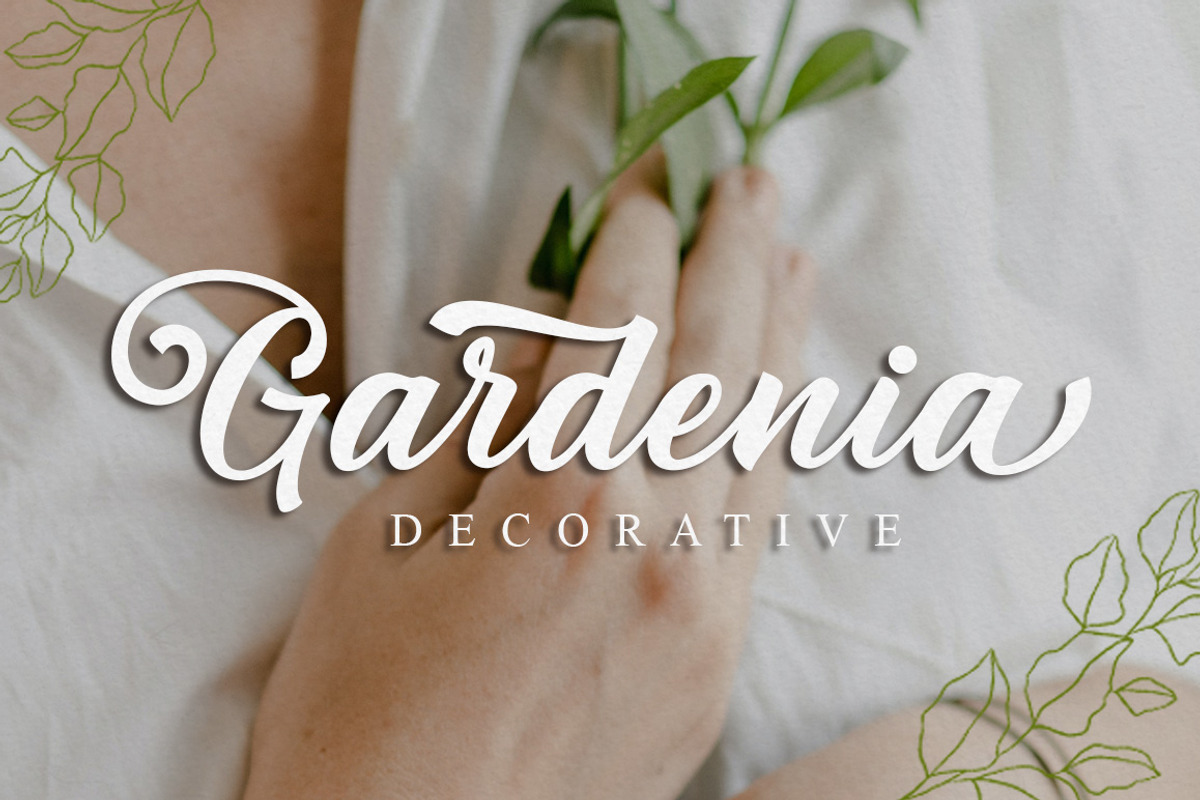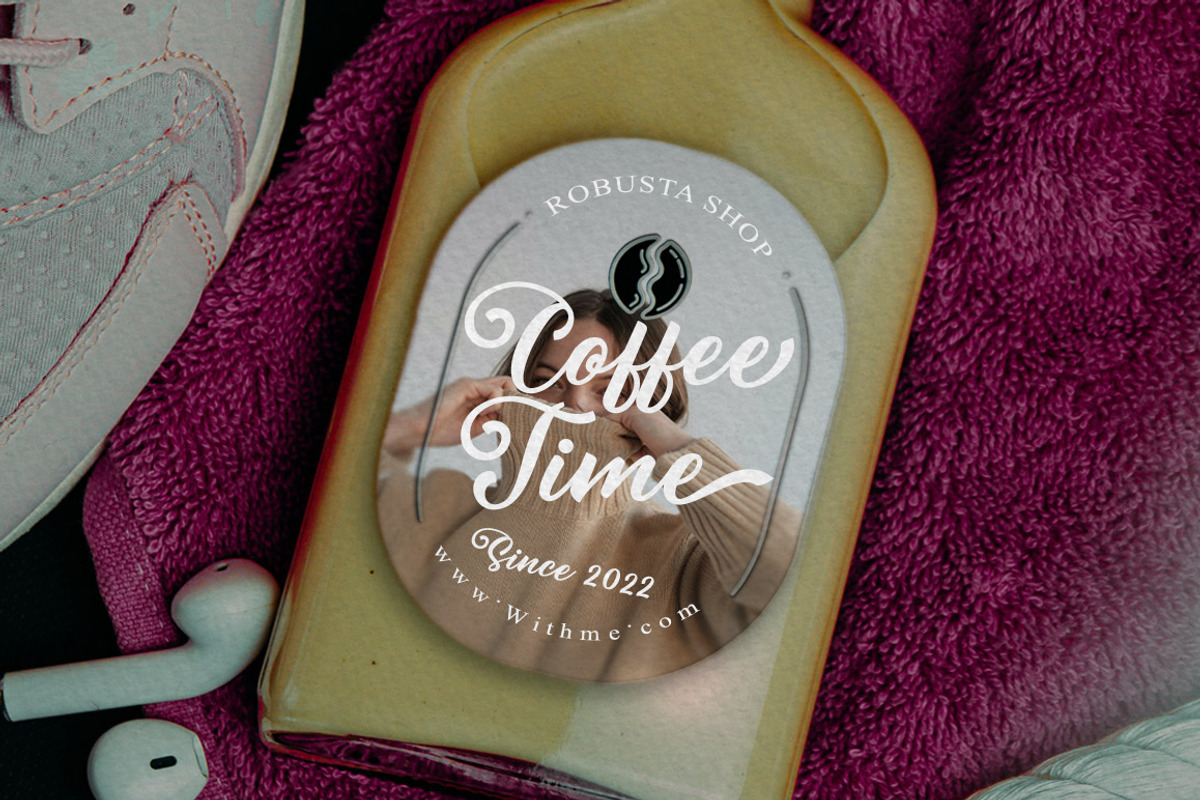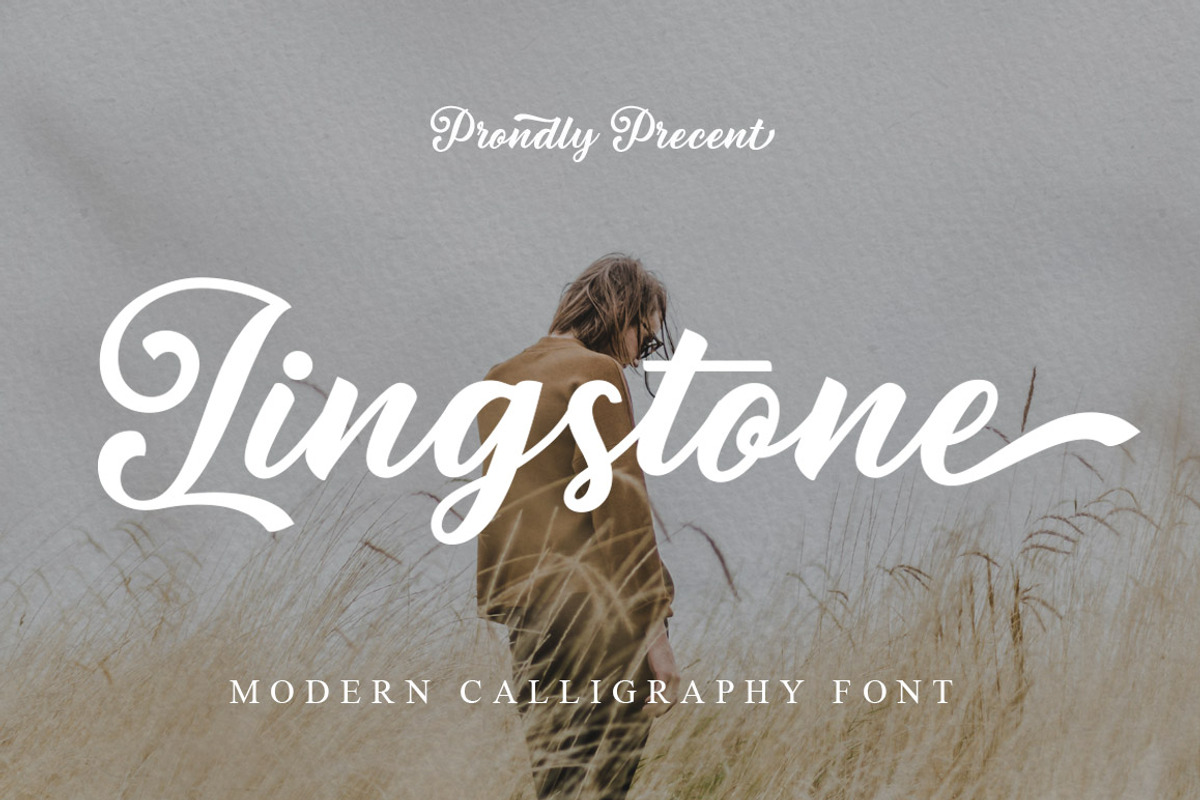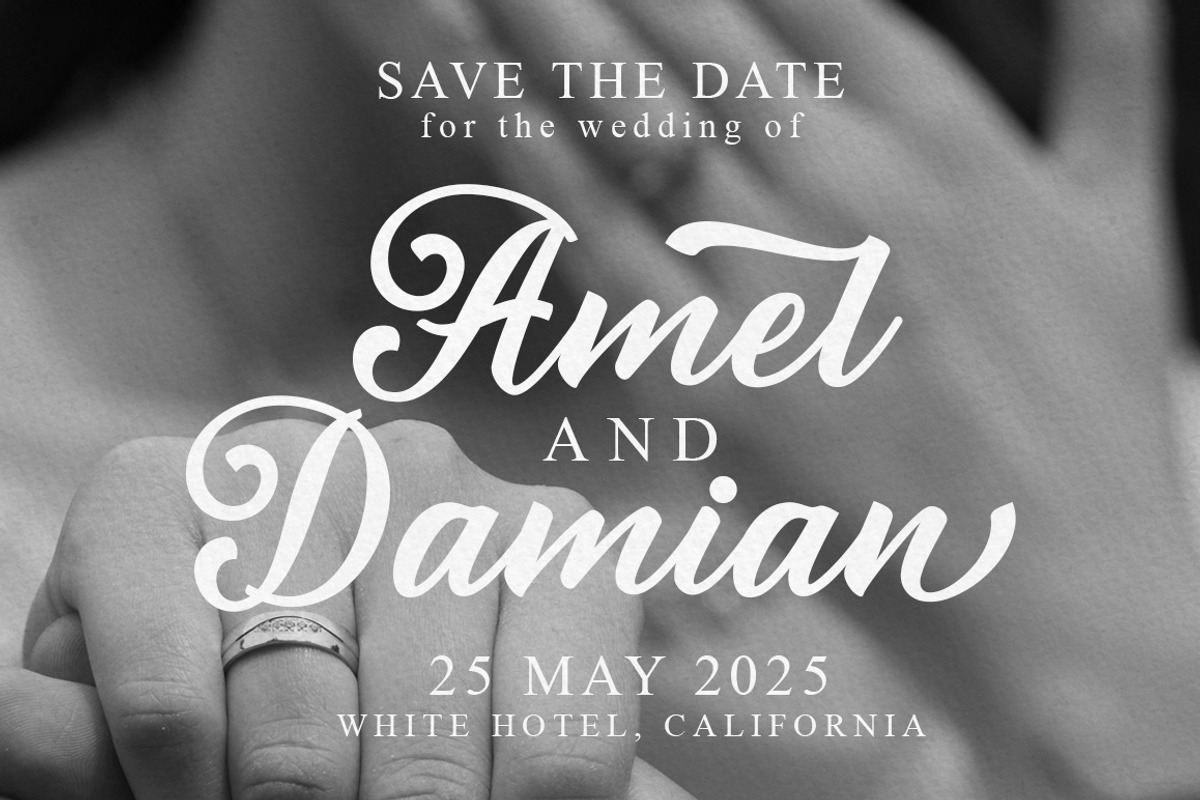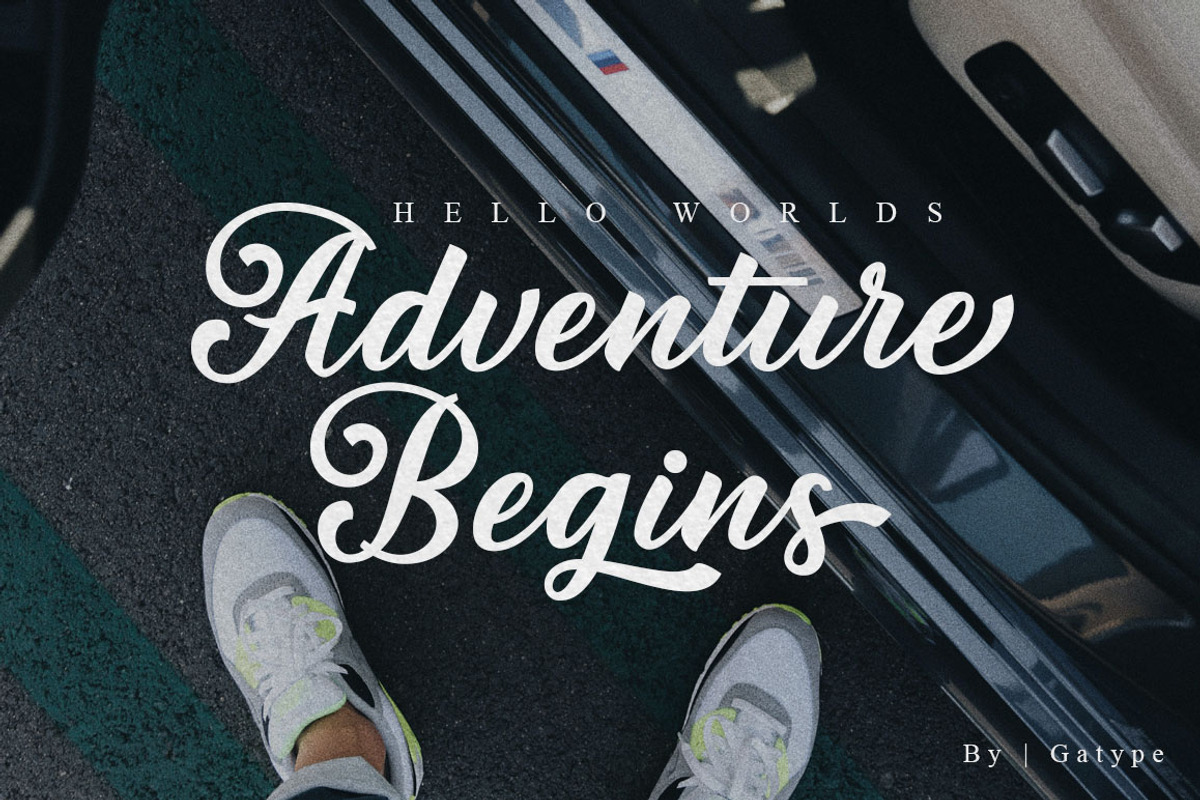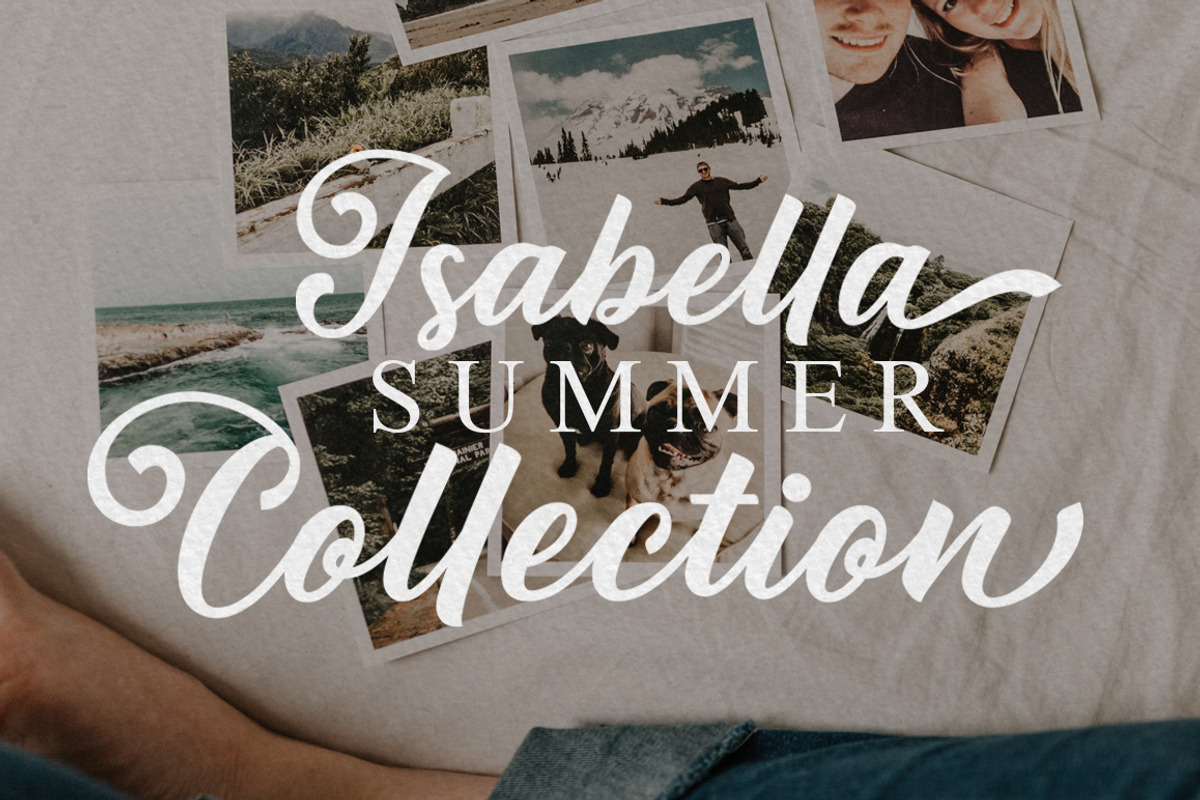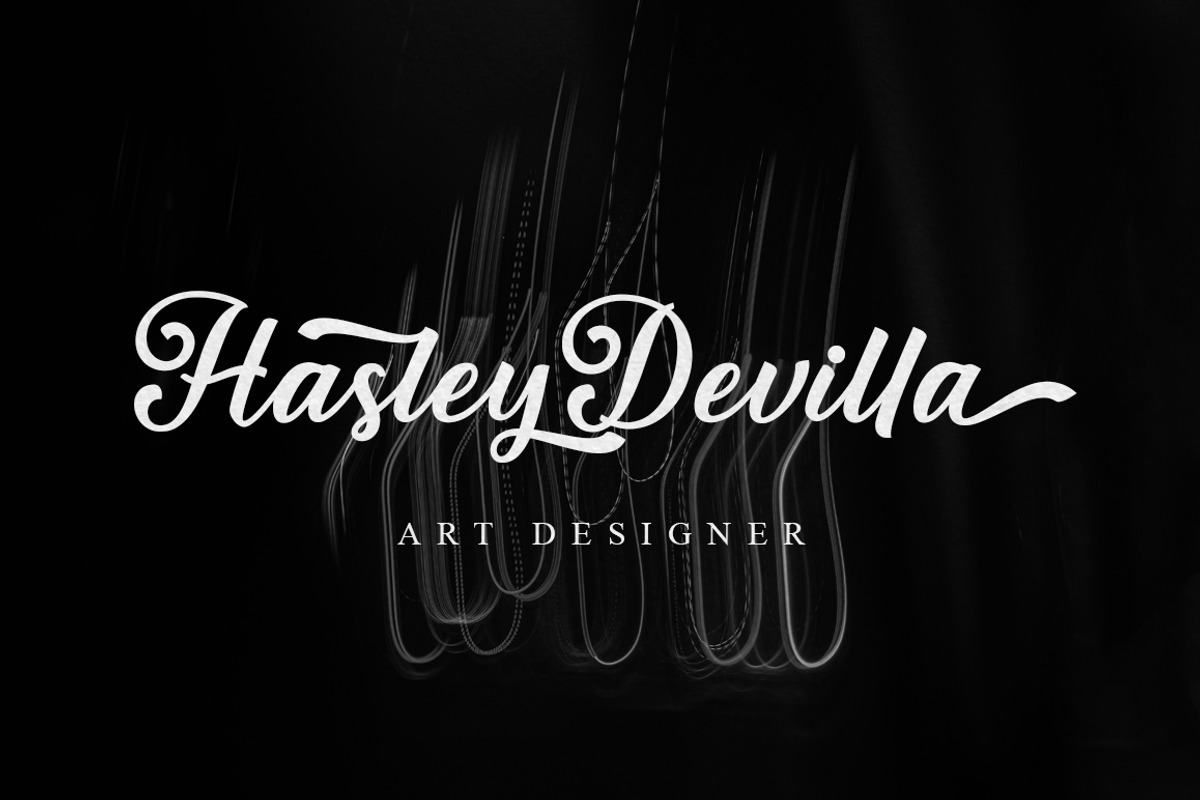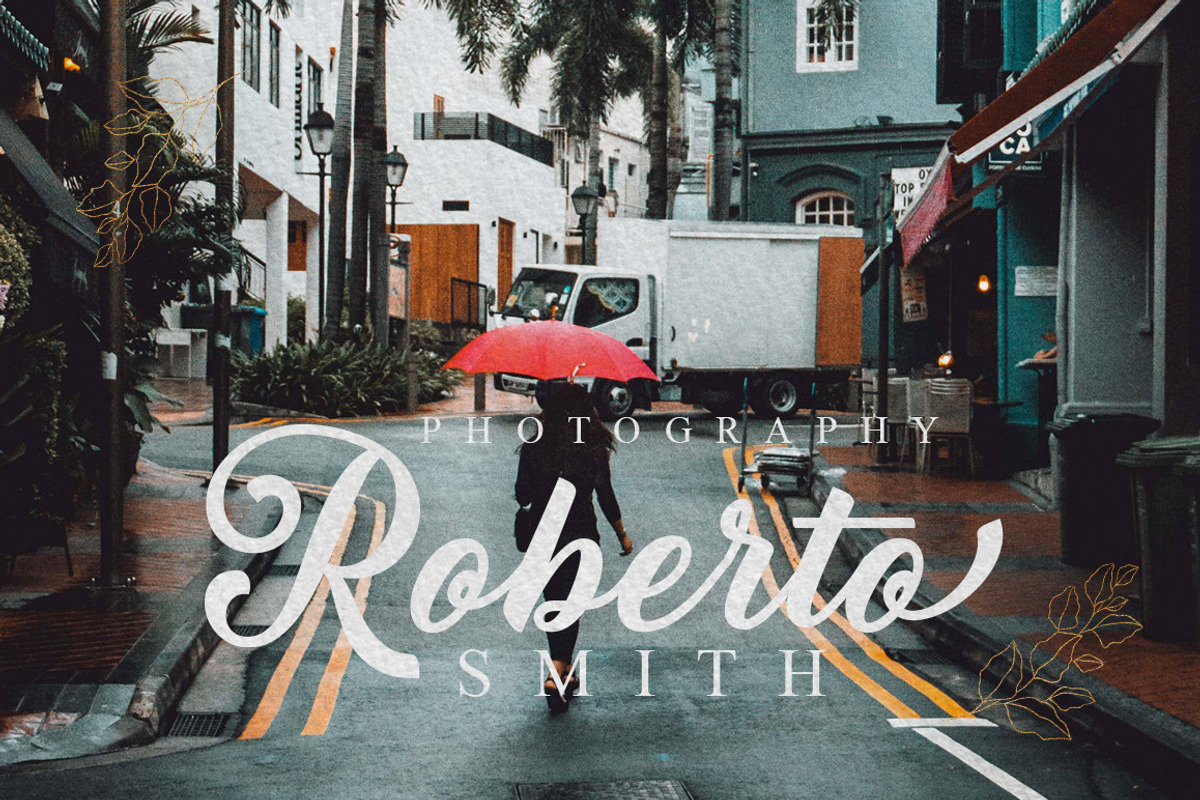
Lingstone
Lingstone Script modern script style sweet calligraphy, decorative characters and dancing baseline! Very pretty on invitations such as greeting cards, branding materials, business cards, quotes, posters and more!
Lingstone Script comes with 441 glyphs. Alternate characters are divided into several Open Type features such as , Stylistic Alternates. The Open Type feature can be accessed using Open Type savvy programs such as Adobe Illustrator, Adobe InDesign, Adobe Photoshop version of Corel Draw X, and Microsoft Word. And this Font has provided PUA unicode (custom coded font). so that all alternative characters can be easily accessed in full by a craftsman or designer.